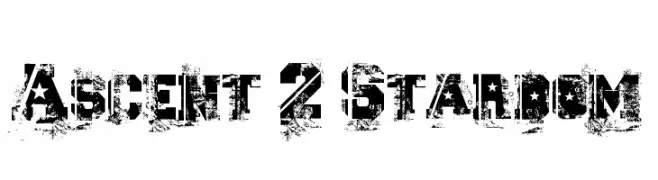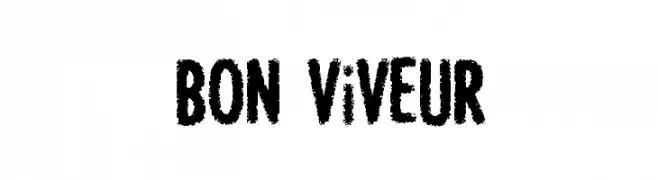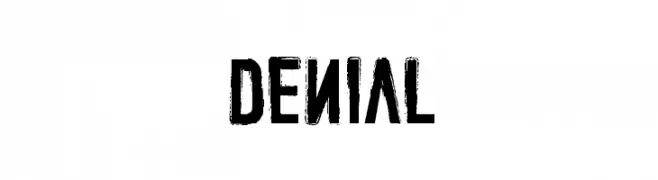
A bold, textured font with a hand-painted, dynamic style.
A bold, distressed font with a grunge texture and rugged appearance.
A bold, distressed font with a grunge aesthetic.
A bold, distressed font with a grunge texture and vintage appeal.
A bold, distressed font with a grunge aesthetic and textured appearance.
A rugged, distressed font with bold, textured characters.
A bold, distressed font with a grunge texture and star pattern.
A bold, distressed font with a grunge texture and rugged appearance.